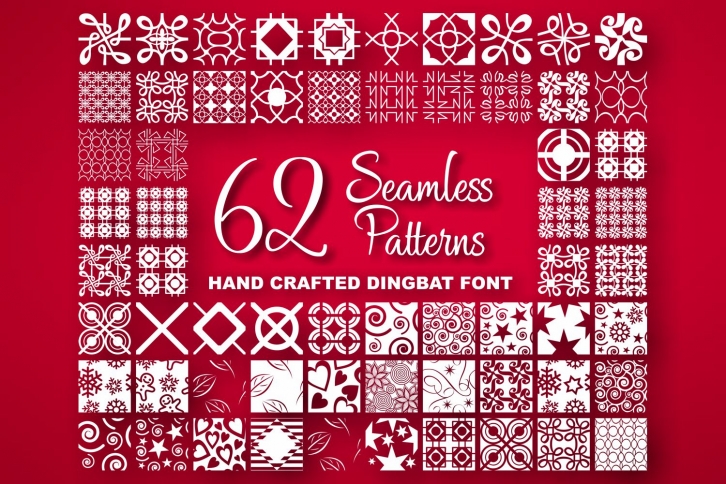
Seamless Pattern Dingbat is a beautiful font that was designed by Digital Typeface Studio. It's a great choice for designers and creatives who need such a font. It was released on December 12, 2018 and the file size is 1.70 MB. Seamless Pattern Dingbat may give a more youthful, expressive and casual look to your project. It is a very beautiful, refined, elegant, and high-quality font.